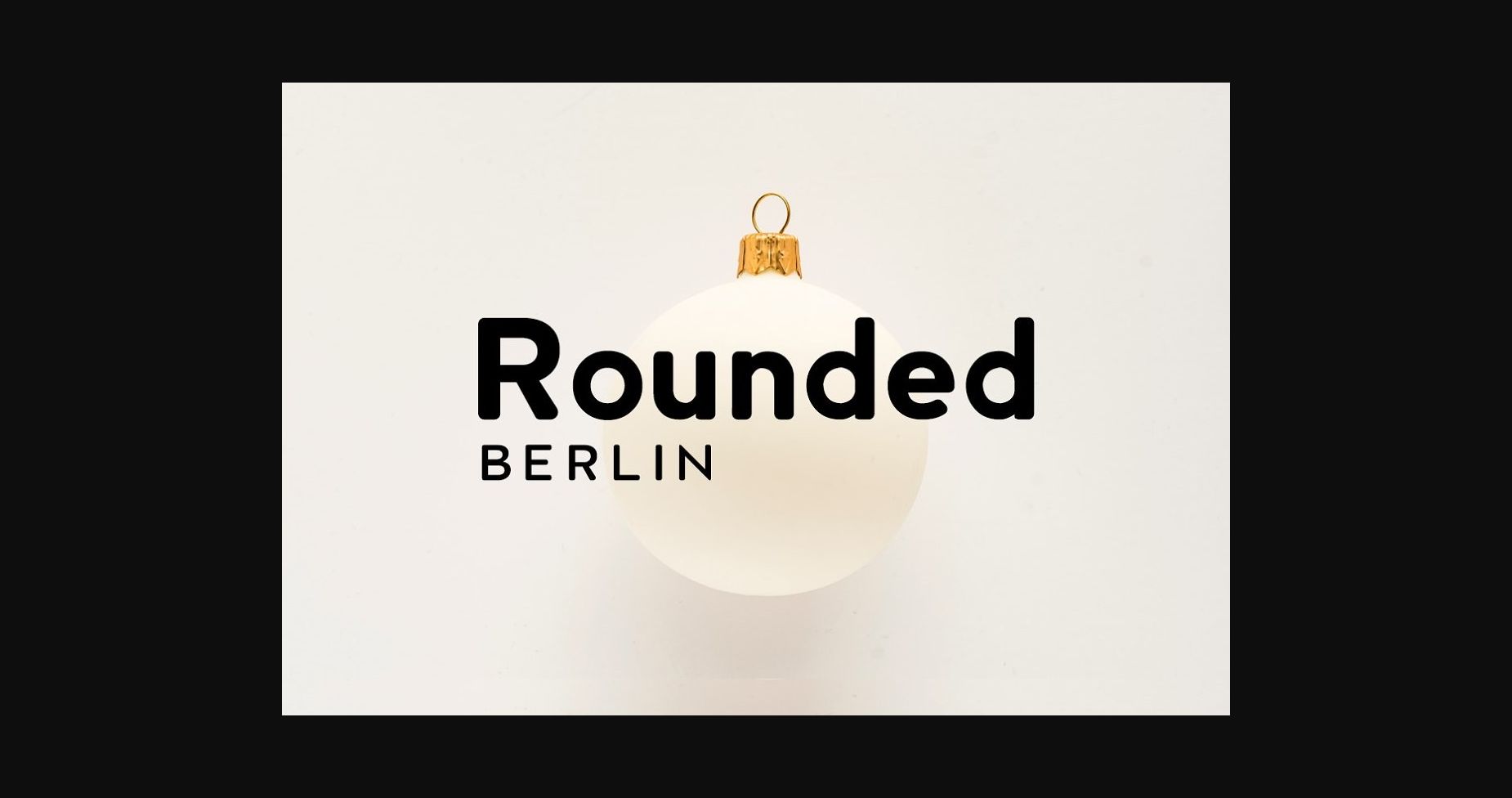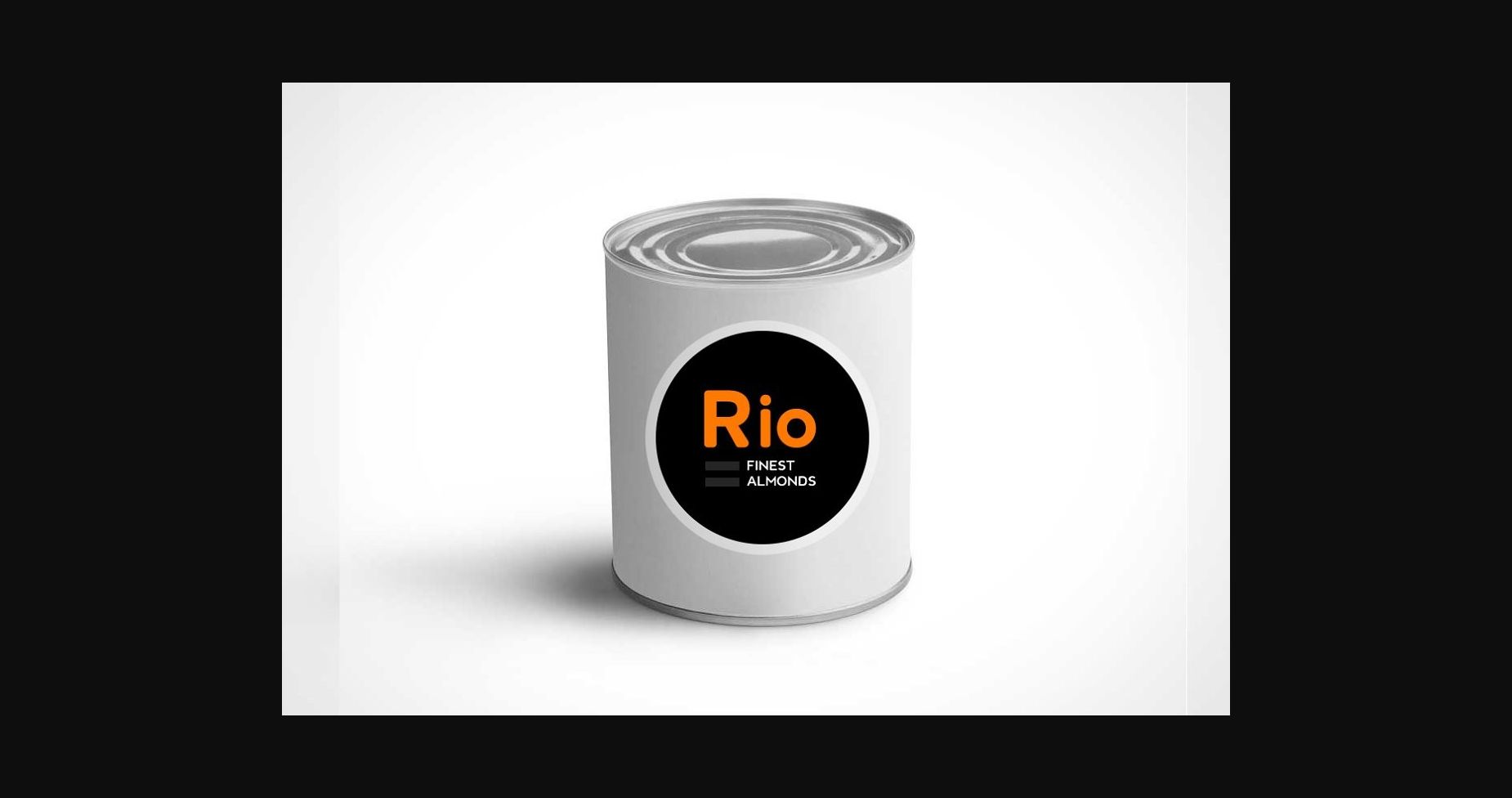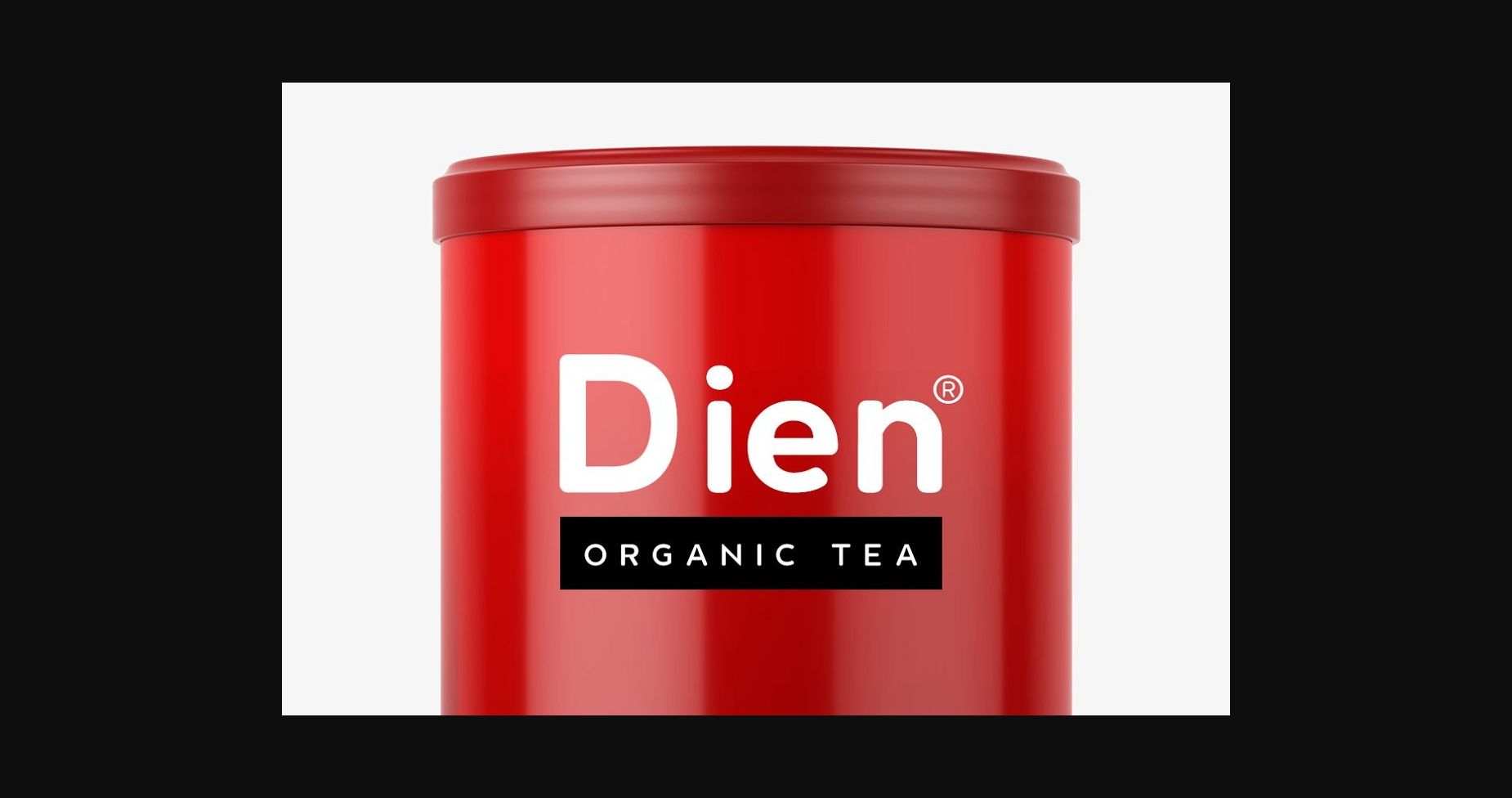
HomeSans Serif FontsBerlin Font Sans Serif Fonts Berlin Font FacebookXPinterestWhatsApp 1 of 5 ... Berlin Font Poster 2... Berlin Font Poster 3... Berlin Font Poster 4... Berlin Font Poster 5... About Berlin Font Berlin is a minimal and round lettered sans serif font. It can easily be matched to an incredibly large set of projects, so add it to your creative ideas and notice how it makes them stand out! DOWNLOAD NOW People also explored Filmotype Fashion Miniature Font Caveman Parkoseum Font Christmas Present Font Scarlett Font Chastum Font Winterday Font Royalister Font 315 0 TagsBerlinBerlin Font Previous articleVector FontNext articleNormal Font LEAVE A REPLY Cancel reply Comment: Please enter your comment! Name:* Please enter your name here Email:* You have entered an incorrect email address! Please enter your email address here Website: Save my name, email, and website in this browser for the next time I comment. Personal Use Free Cherry Ai Personal Use Free Read more about this font Bintang Noela Personal Use Free Read more about this font Bright Dreams Personal Use Free Read more about this font Veronica Personal Use Free Read more about this font BLOG How to Install and Use Fonts on Windows, macOS, and Web Projects How to Install and Use Fonts on Windows, macOS, and Web Projects Fonts are a crucial part of design and branding. Whether you’re designing a... To increase your work productivity, choose the most readable fonts. Top 7 Google Fonts Alternatives for Faster and Privacy-Friendly Web Design (2025) Best Fonts for T-Shirt Design – Top 2025 Picks